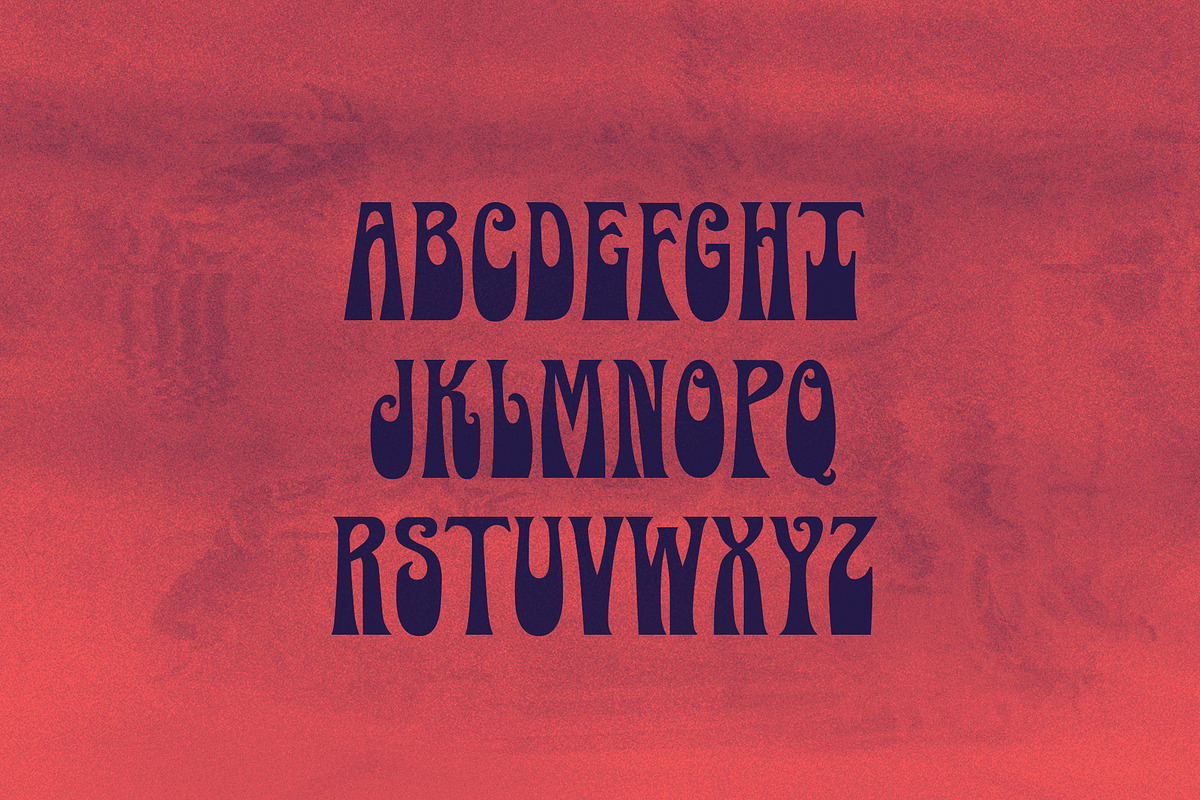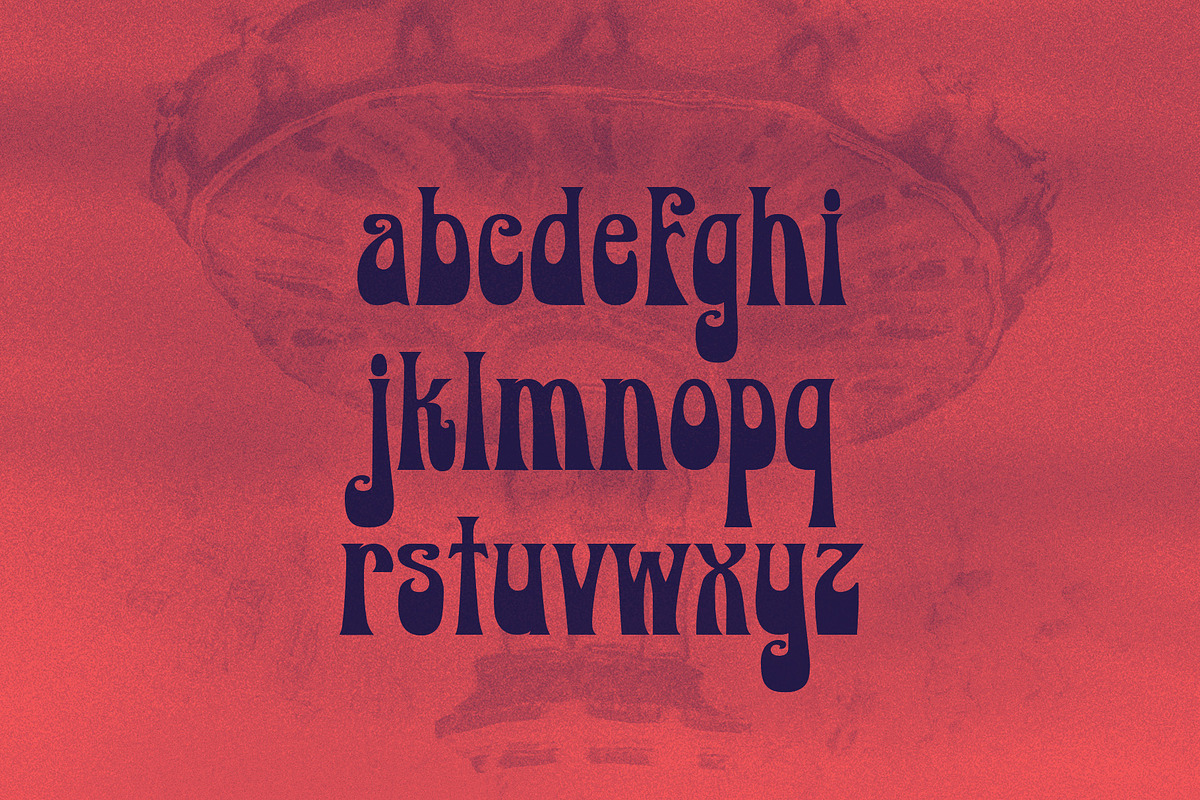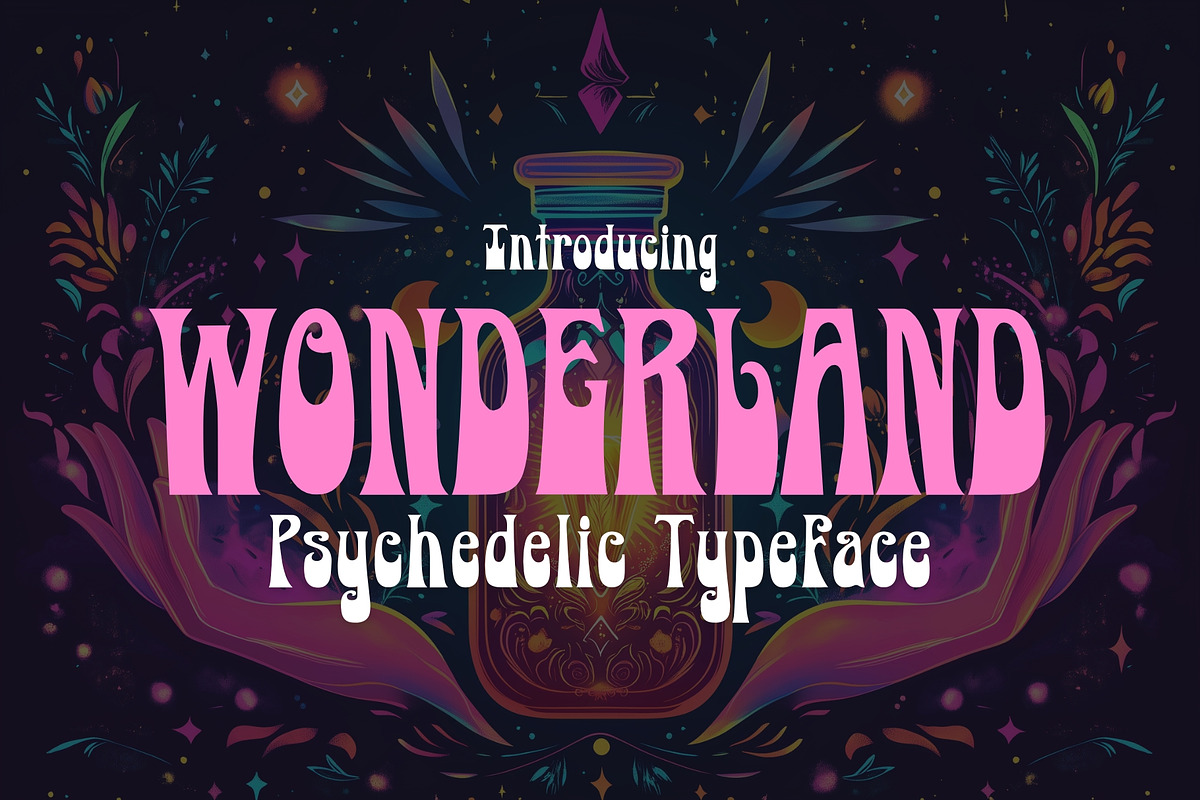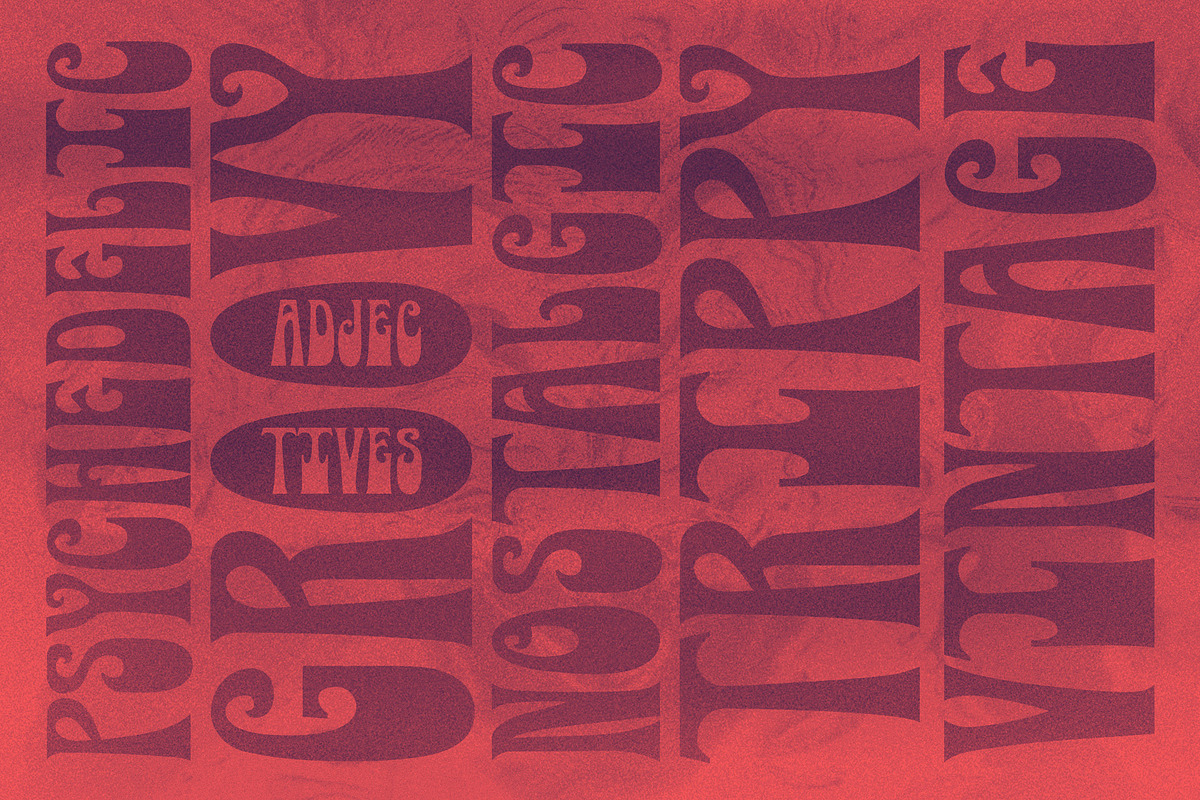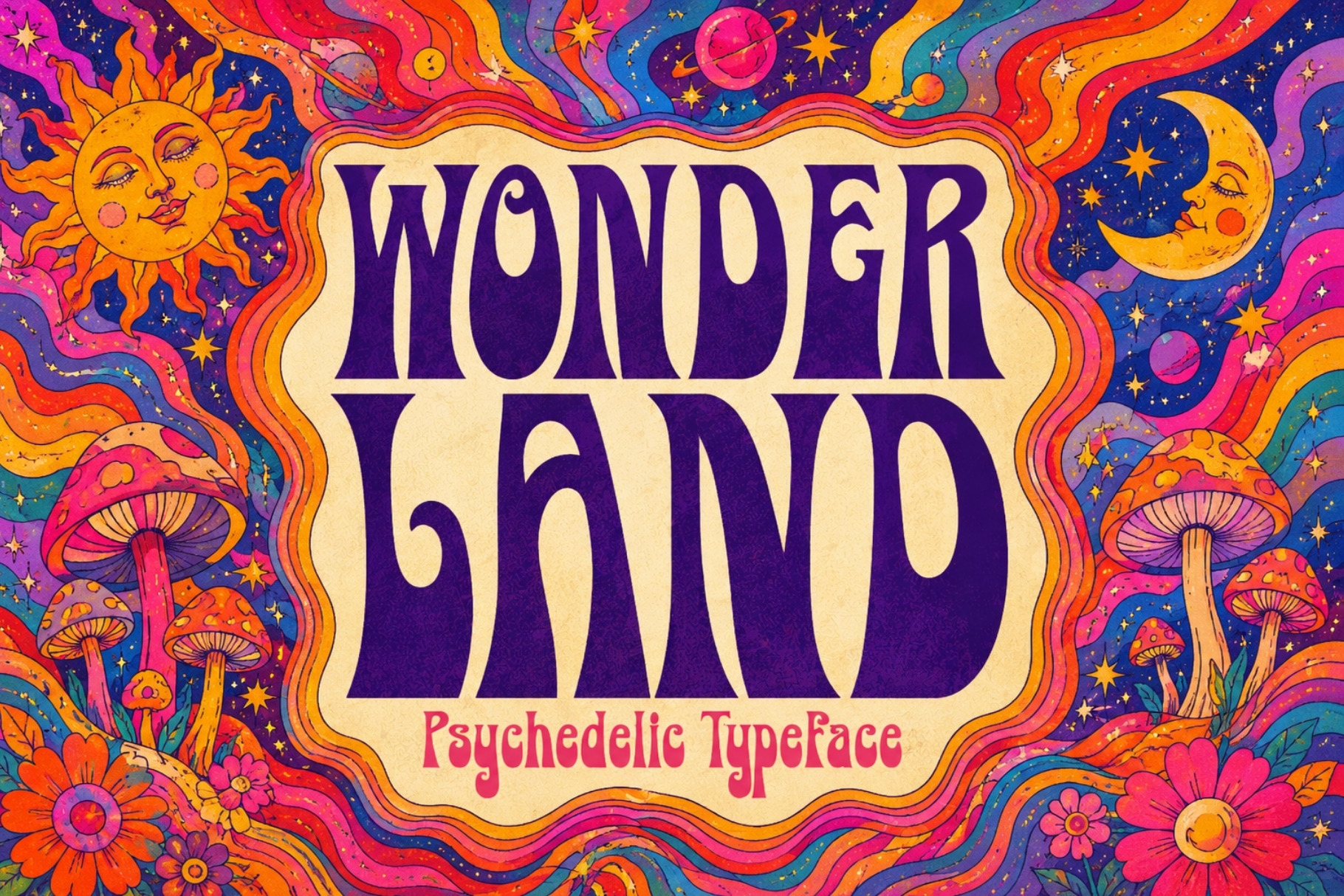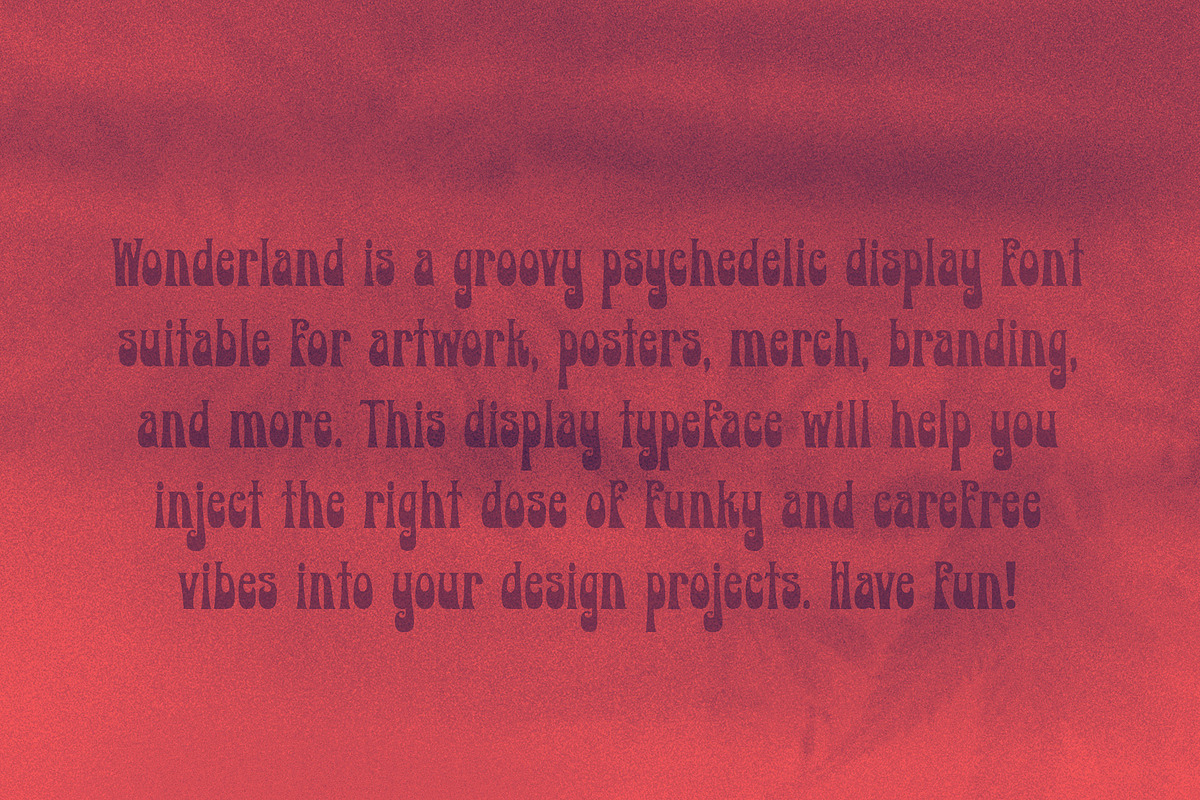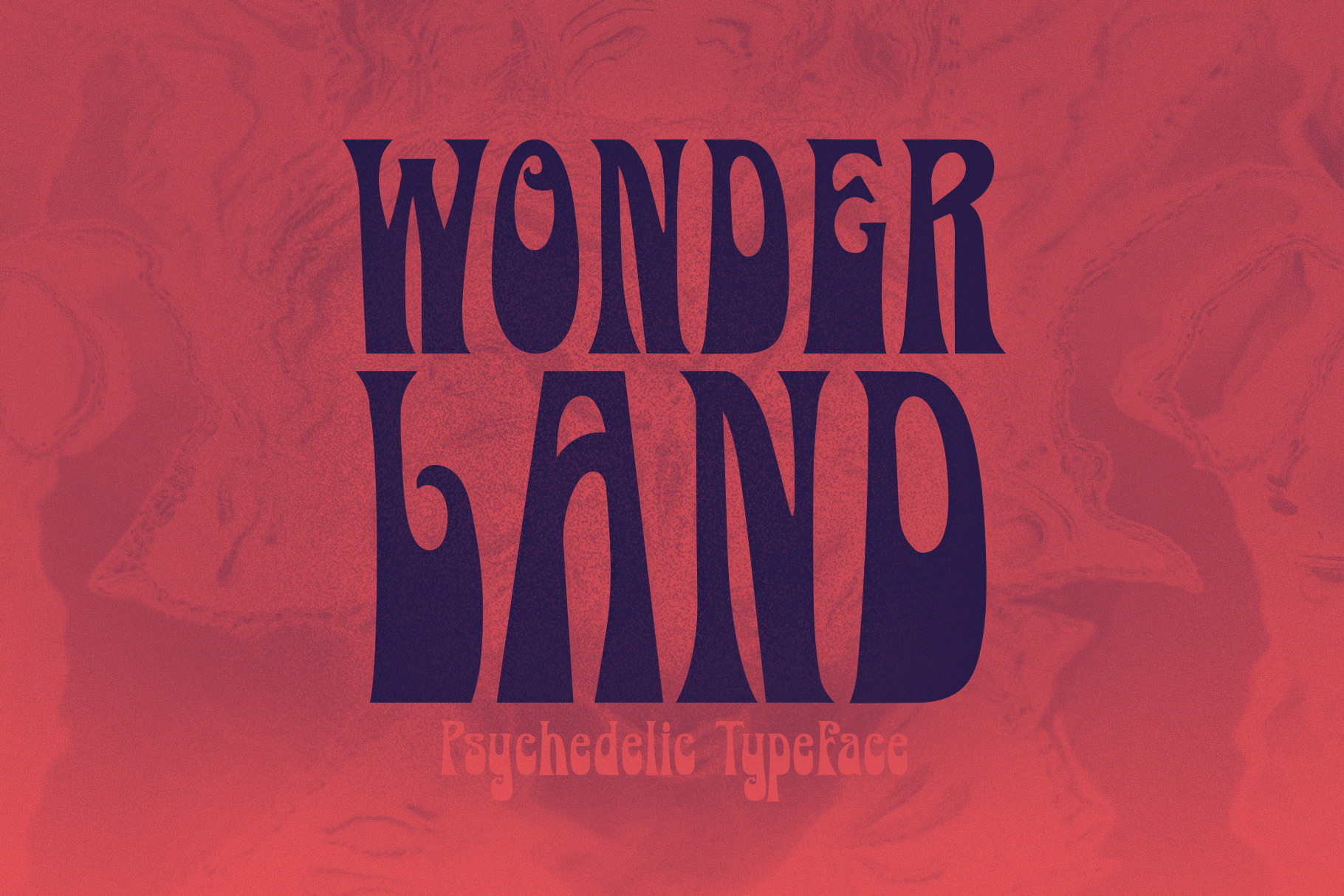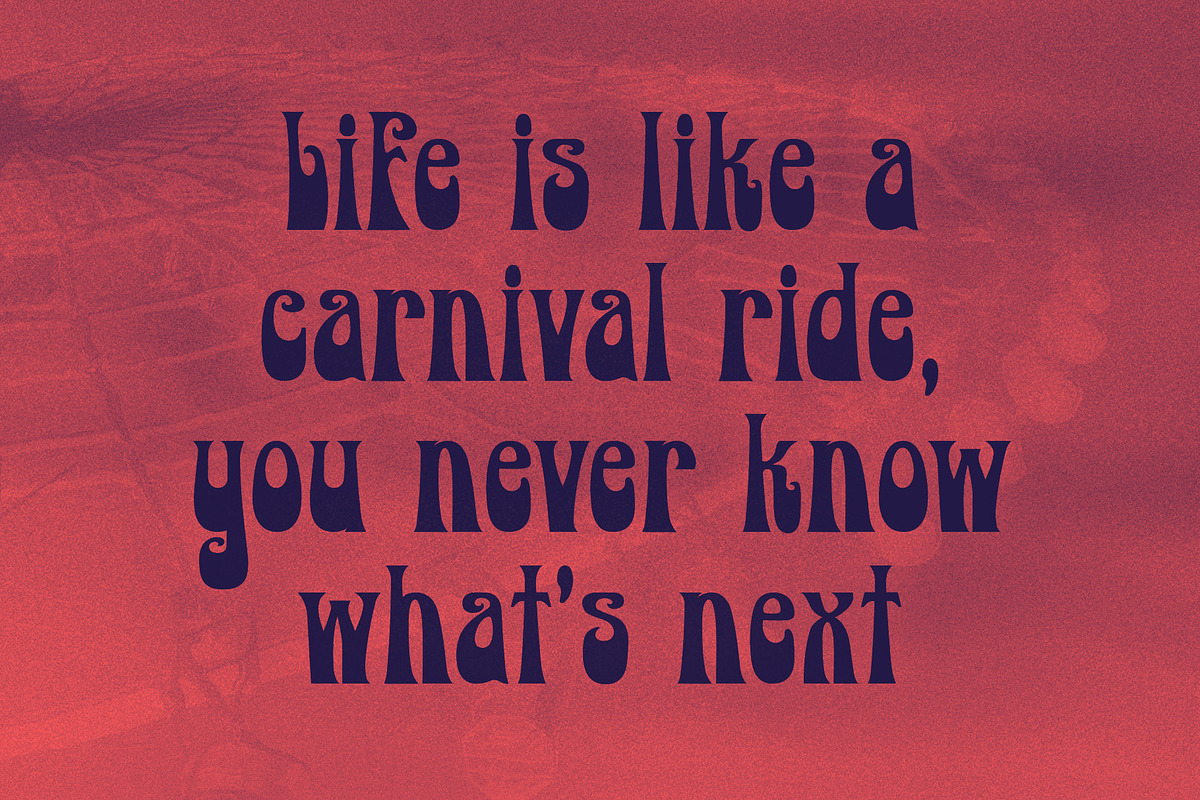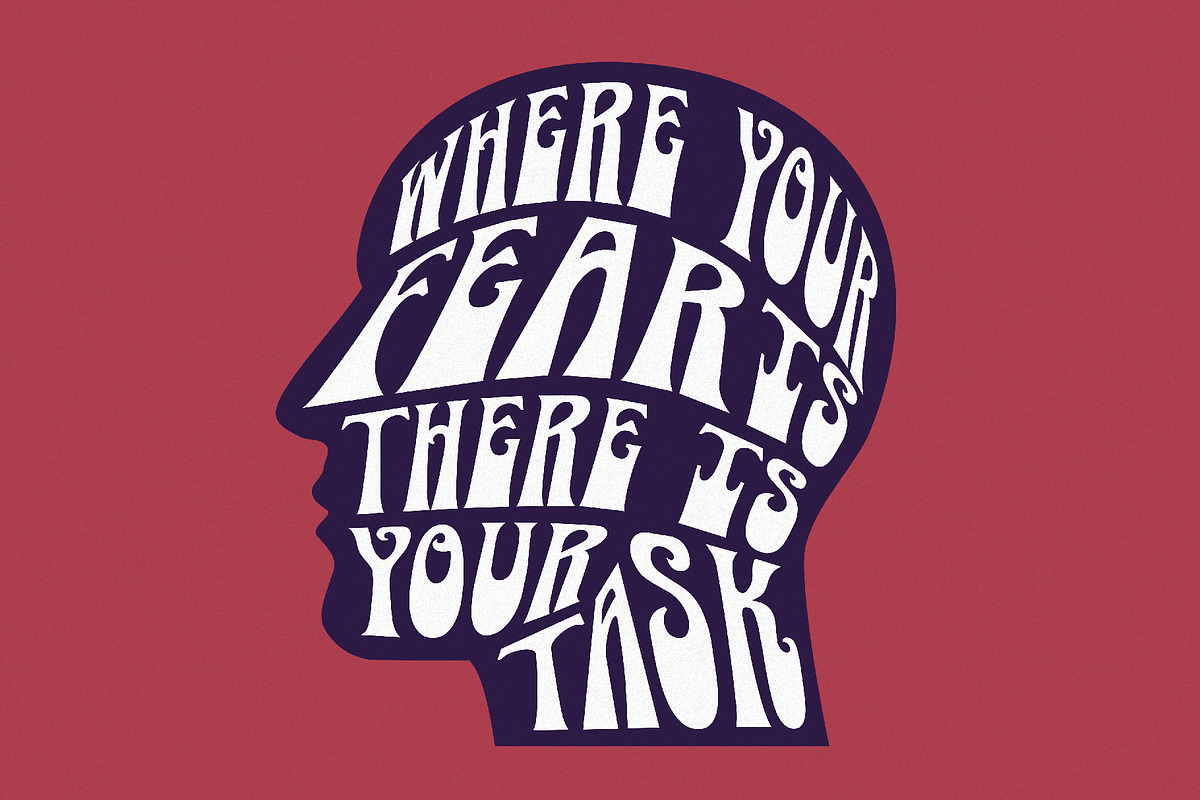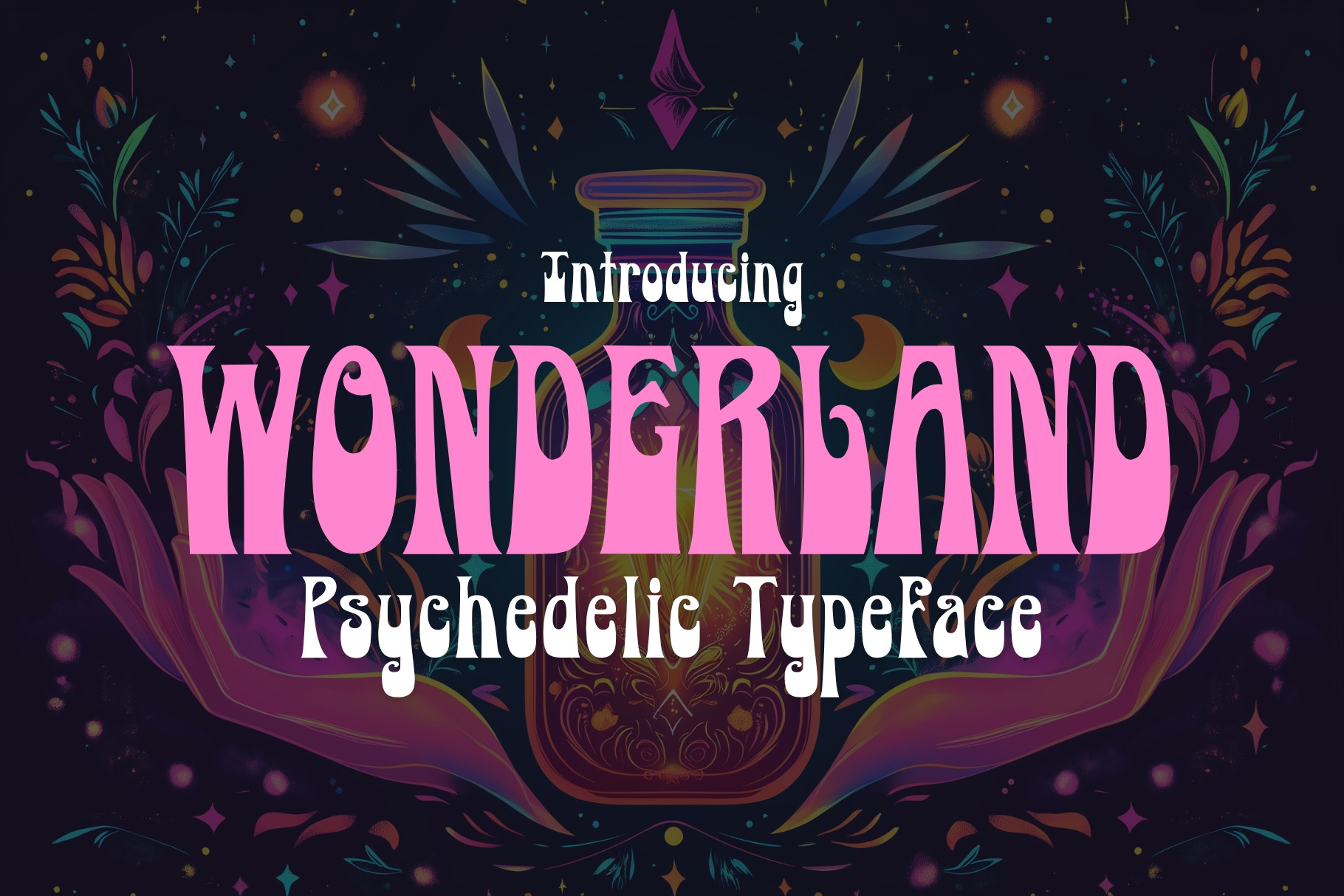
Wonderland - Psychedelic Typeface
Wonderland is a groovy psychedelic display font suitable for artwork, posters, merch, branding, and more. This display typeface will help you inject the right dose of funky and carefree vibes into your design projects. Have fun!